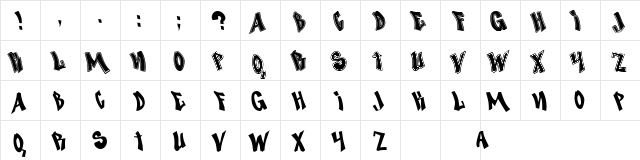
Nosegrind Demo Regular
Design Context for Nosegrind Demo Typeface
Nosegrind Demo is a composed and adaptable typeface that performs quietly and consistently across a wide range of design contexts.